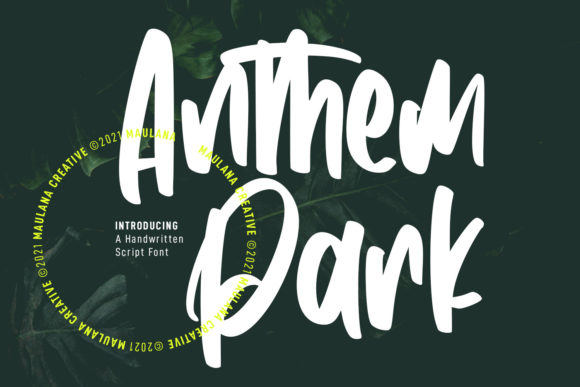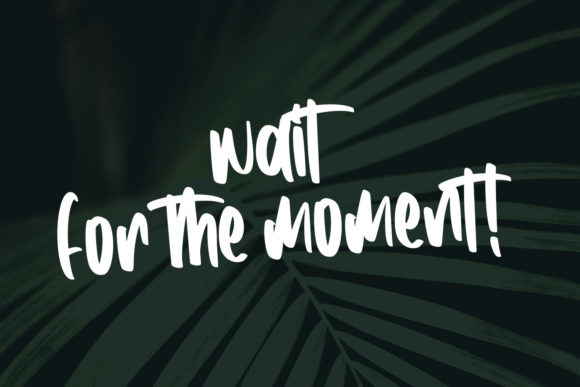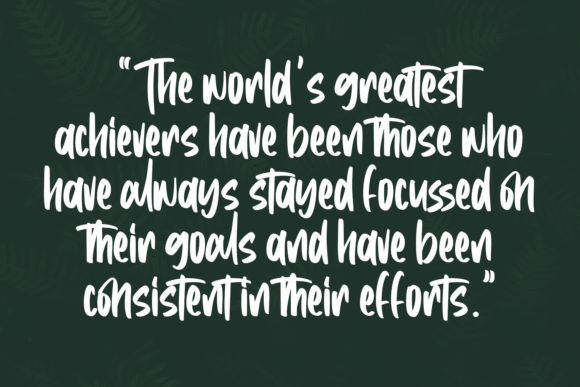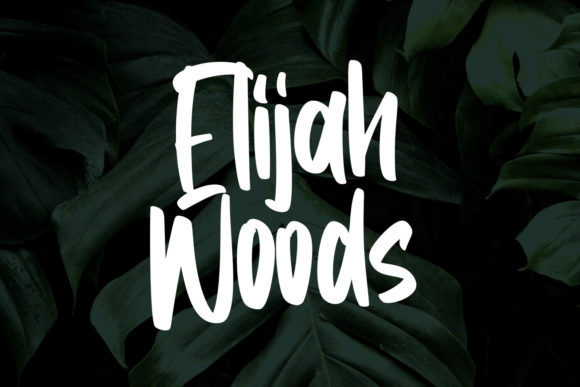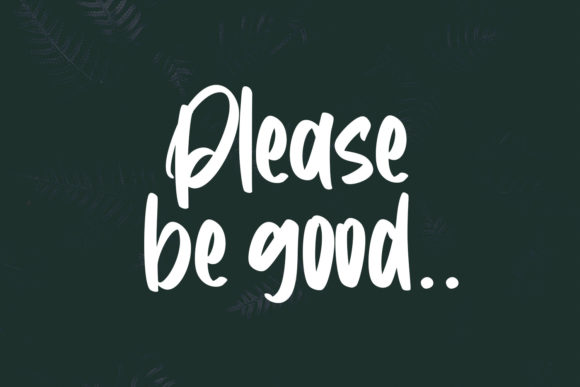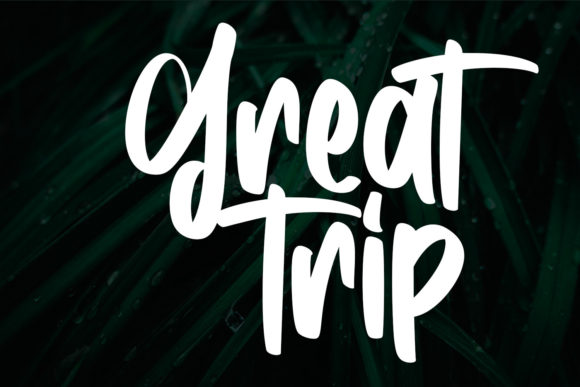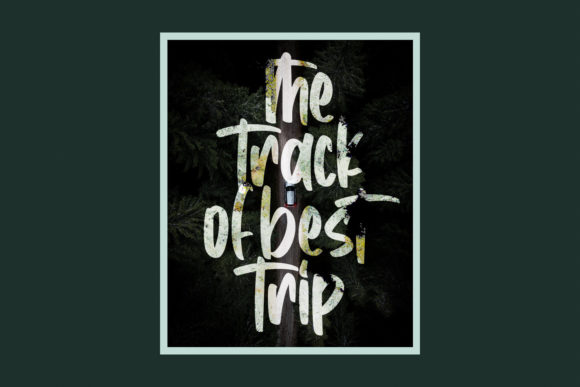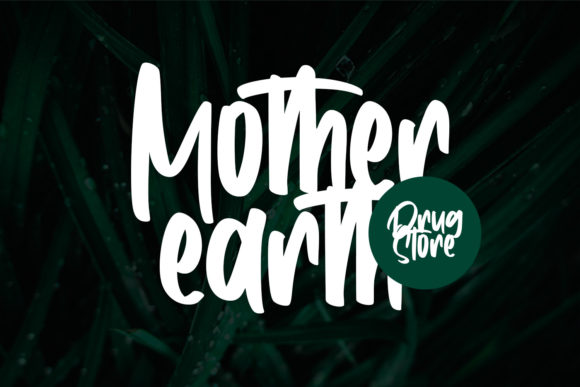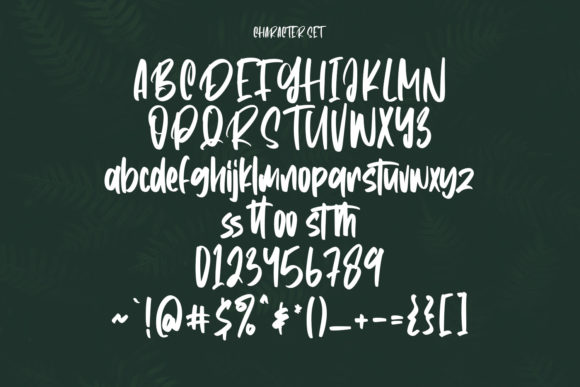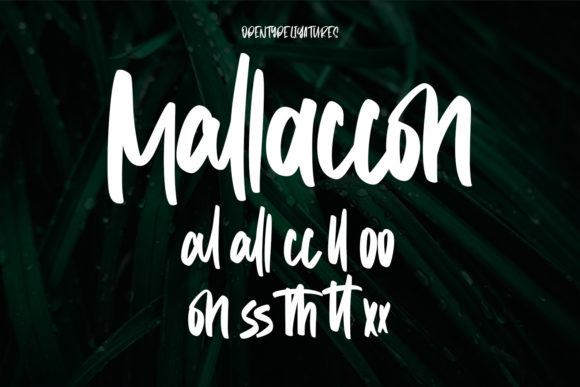
Anthem Park Font
About Anthem Park Font
Anthem Park is a quirky and adaptable handwritten font. It looks stunning on wedding invitations, thank you cards, quotes, greeting cards, logos, business cards and every other design which needs a handwritten touch.